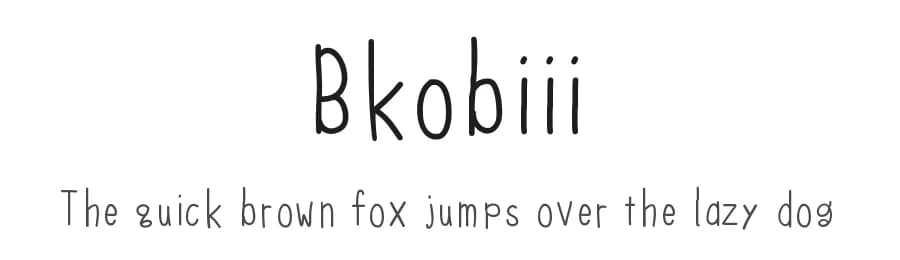
About Bkobiii Font
Bkobiii is a script & handwritten font designed by Daisy Mason. It includes 198 glyphs, a medium weight, TTF (TrueType) format, and 209 languages. Bkobiii is free to download; check the license details on this page before commercial use. Script & handwritten fonts like Bkobiii work best for wedding invitations, greeting cards, signatures, and elegant branding.
Bkobiii Font is a script font that shines as a display or heading face. Pair it with a clean sans-serif or serif font for body text β the contrast creates a clear hierarchy while the two styles stay balanced and easy to read.
Bkobiii Font